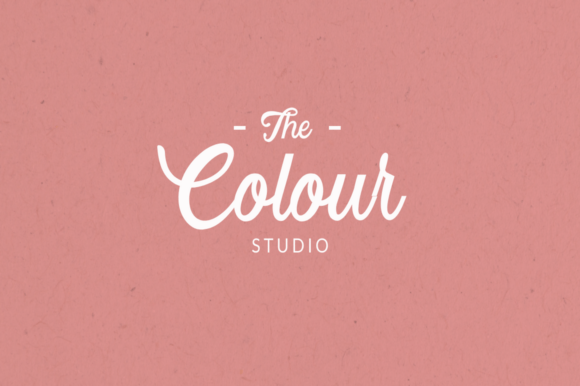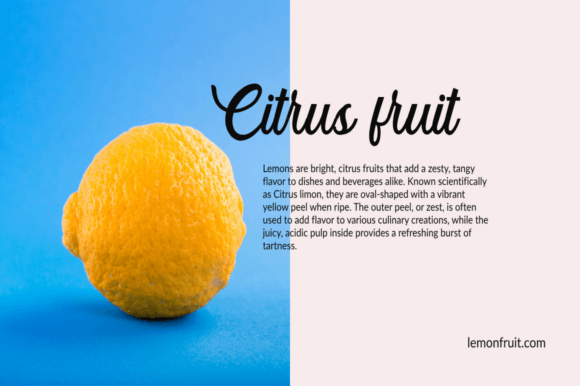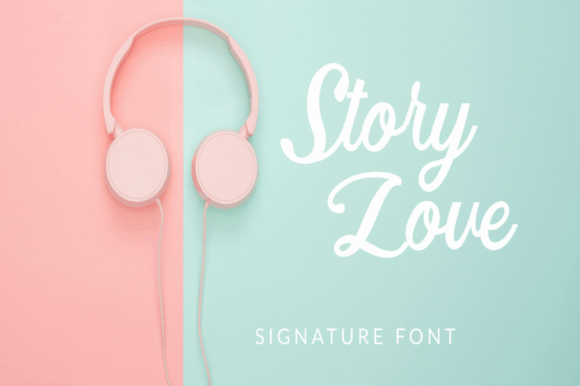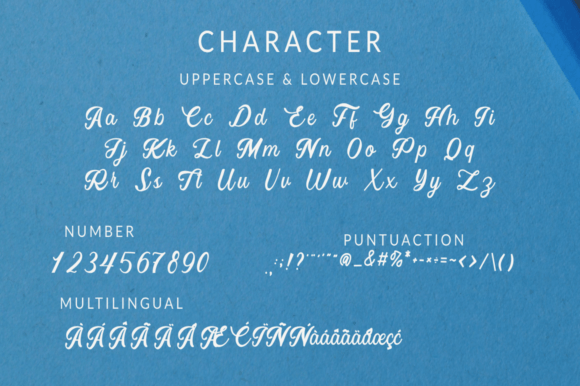
Introducing Arnold Script: The Ultimate Font for Modern Creatives
In the world of typography, few fonts manage to strike the perfect balance between elegance and confidence. However, Arnold Script Font effortlessly achieves this, making it a go-to choice for fashion-forward designers and creatives. This bold and stylish typeface is not just a font; it’s a statement piece that can elevate any project to new heights of sophistication and charm.
Design and Features of Arnold Script
Arnold Script is characterized by its smooth curves and dynamic strokes, which give it a unique and luxurious feel. The font’s bold weight ensures that it stands out in any design, making it perfect for projects that require a touch of drama and elegance. Whether you’re working on wedding invitations, apparel designs, logos, or any other typographic project, Arnold Script is sure to make a lasting impression.
Perfect for Fashion and Wedding Designs
For designers working in the fashion industry, Arnold Script Font is an invaluable asset. Its bold and stylish appearance makes it ideal for fashion brand logos, headlines, and typographic elements that need to exude confidence and elegance. Similarly, for those working on wedding designs, this font adds a touch of sophistication and romance to wedding invitations, programs, and other ceremonial materials.
Versatility and Creative Applications
One of the standout features of Arnold Script is its versatility. This font is not limited to fashion and wedding designs; it can be used across a wide range of creative projects. From logotypes and branding to packaging and advertising, Arnold Script’s unique character and elegance can enhance any design. Its ability to command attention while still maintaining a level of sophistication makes it a valuable tool for designers looking to create memorable and impactful work.
Why Choose Arnold Script?
There are several reasons why Arnold Script Font should be your top choice for your next design project:
- Elegance and Confidence: It embodies both elegance and confidence, making it perfect for designs that need to stand out.
- Versatility: Suitable for a wide range of projects, from fashion and wedding designs to logos and typographic projects.
- Unique Character: Its smooth curves and dynamic strokes give it a unique and luxurious feel.
- Sophistication: Adds a touch of sophistication and charm to any project.
Tips for Using Arnold Script Effectively
To get the most out of Arnold Script Font, consider the following tips:
- Pair with Simplicity: Allow Arnold Script to be the focal point by pairing it with simpler fonts or design elements.
- Experiment with Sizes: Play with different sizes to emphasize certain words or phrases and create visual hierarchy.
- Use in Limited but Impactful Ways: Use Arnold Script sparingly to highlight key messages or calls to action.
Arnold Script Font is more than just a typeface; it’s a design statement. Its bold and stylish appearance, combined with its elegance and versatility, makes it an essential tool for modern creatives. Whether you’re designing for fashion, weddings, or any project that requires a touch of luxury and artistic flair, Arnold Script is the perfect choice. Bring your designs to life with Arnold Script and make every message unforgettable.